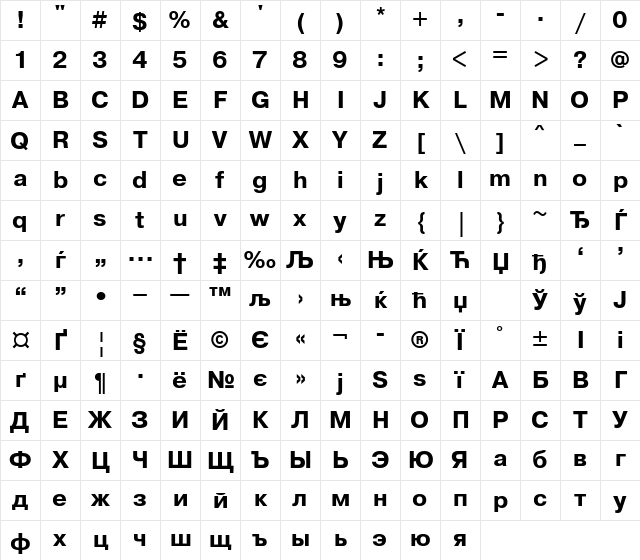
PragmaticaCTT Bold Free Font
PragmaticaCTT Bold
PragmaticaCTT Family
Design Context for PragmaticaCTT
PragmaticaCTT is a composed and adaptable typeface that performs quietly and consistently across a wide range of design contexts. Its bold stroke weight gives it real presence on the page.